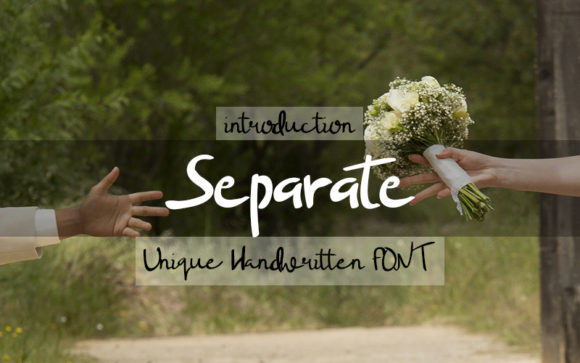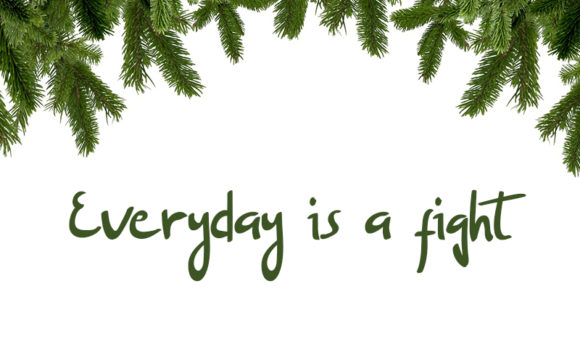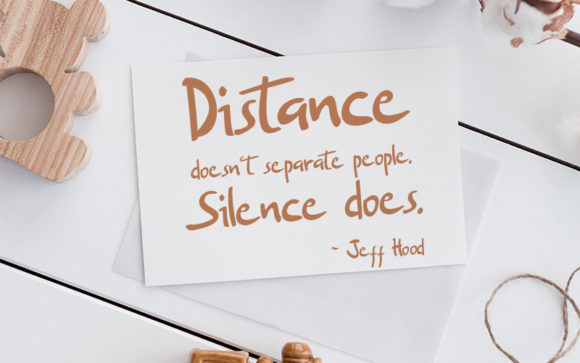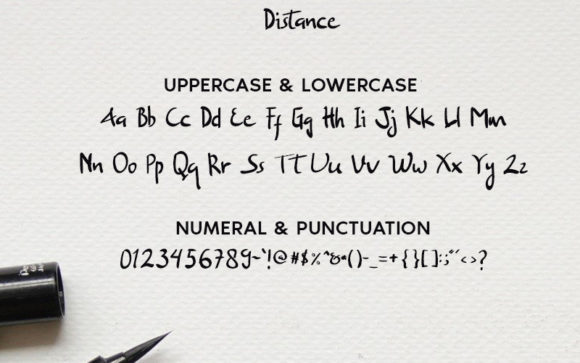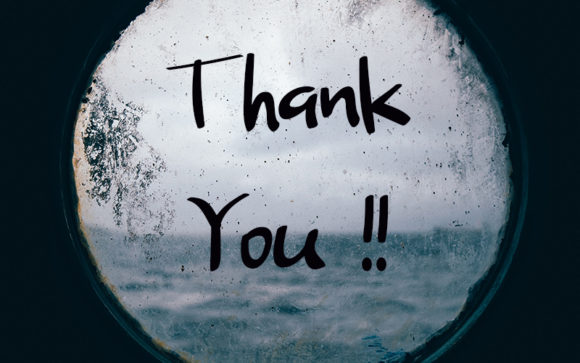
Separate Font
About Separate Font
Separate is a bouncy handwritten font. Clean and a little bit quirky, this font is the perfect fit for all of your logos, branding, social media, and crafty DIY projects.